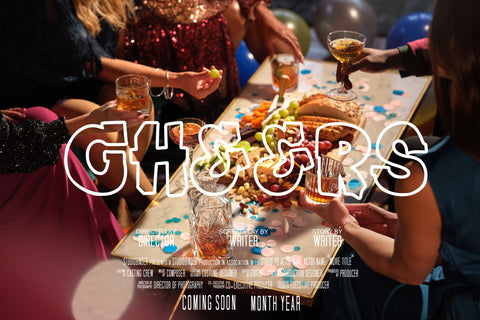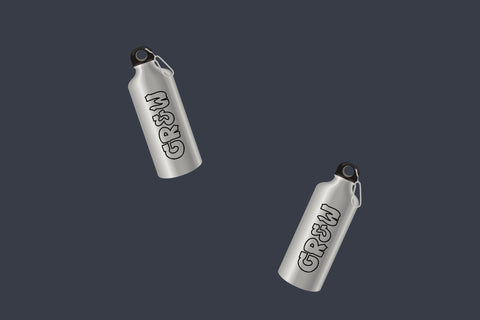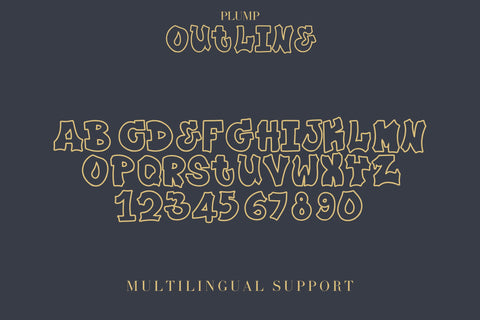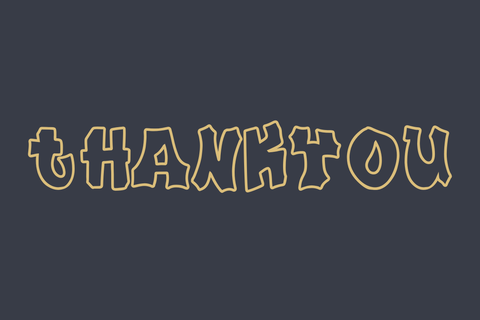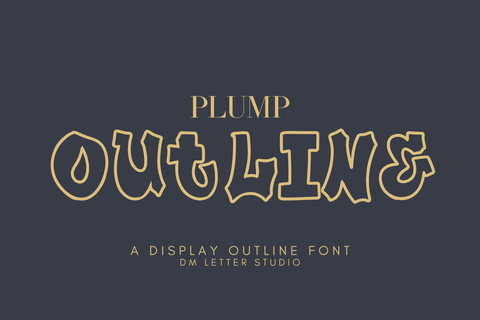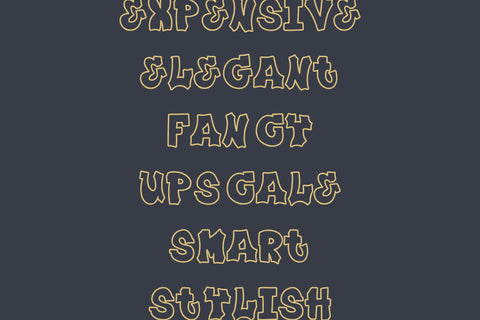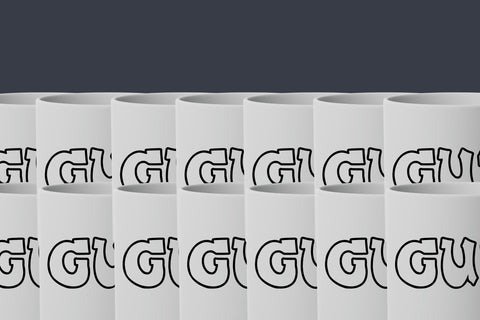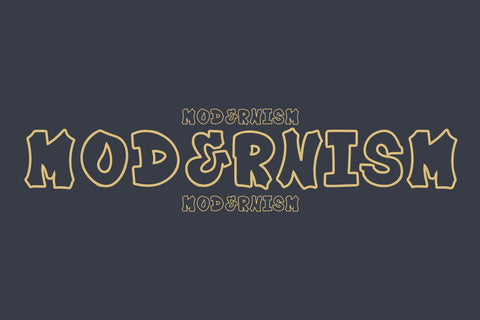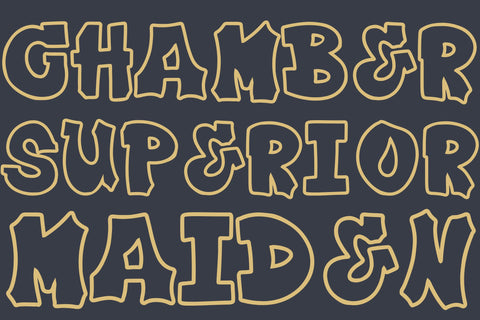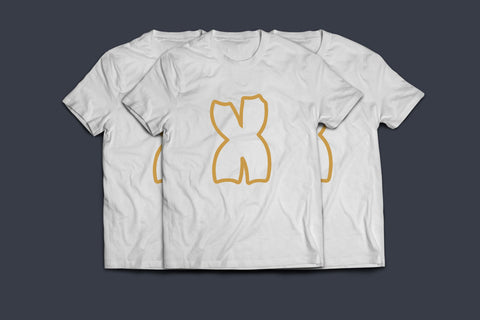
Plump Outline Font
Meet Plump Outline Font
Plump Outline Font brings playful structure to headlines, stickers, shirts, and standout social posts. The letters are bold yet airy, with a clean stroke that frames your words like candy-colored tubing. Because counters stay wide and spacing is even, this outline font reads clearly at thumbnail size and still looks striking on large prints.
Why you will love this outline font
First, it pops on photos and patterned backgrounds. Next, it cuts cleanly for Cricut and Silhouette. Then it layers beautifully with a solid shadow or offset fill, so you can build quick 2-color effects without complex setup. As a result, you can design fast and keep a consistent look across product lines.
Ready for merch, labels, and posts
Install Plump Outline Font in Canva, Photoshop, and Illustrator, then start designing. Smooth curves hold vinyl, DTF, sublimation, and laser with crisp edges. In addition, the rounded geometry feels friendly, which makes it ideal for kids apparel, snack labels, party banners, classroom boards, and cheerful brand marks.
Creative ways to use Plump Outline Font
Stack short phrases like “Sweet Stuff,” “Big Mood,” or “Weekend.”
Add a soft drop shadow or thick offset to create instant bubble-letter fills.
Pair with a neat sans for prices, dates, or captions.
Use bright duos such as melon with cream, aqua with coral, or grape with lime for quick, eye-catching palettes.
Clean outlines tuned for vinyl cutting, print, laser, DTF, and sublimation
Design tips for crisp results
Keep headlines short and let white space breathe. Increase tracking slightly on all-caps words. For photos, add a subtle inner fill or a light shadow so strokes hold their shape. Finally, export at 300 DPI for print and 2x size for web to keep edges smooth.